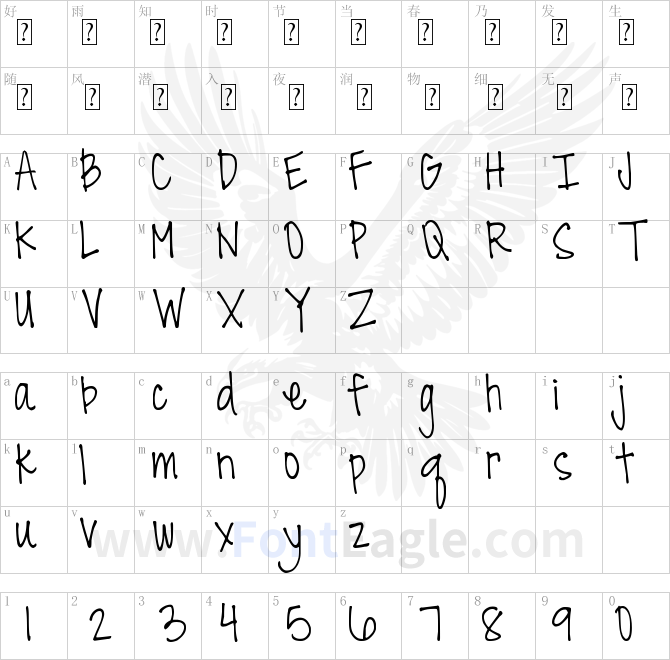
- Font name:DJB All the Cool Chicks
DJB-All-the-Cool-Chicks is a great font, widely used in graphic design, single-page menu design, poster design and other fields, and is deeply loved by designers.DJB-All-the-Cool-Chicks download.